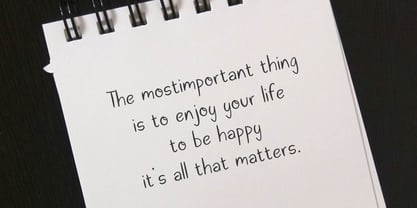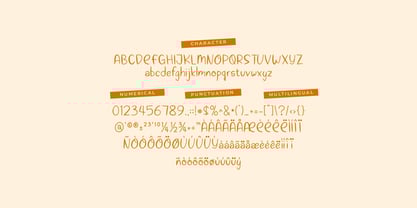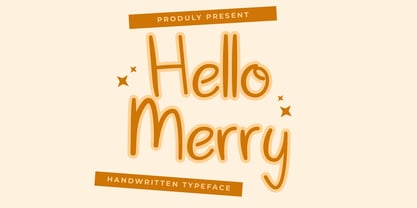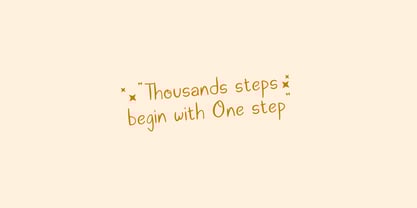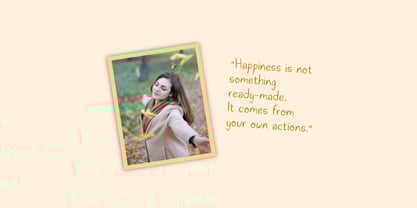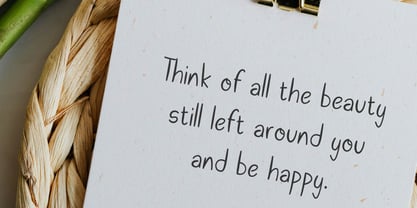
Hello Merry
by Artiveko
The Hello Merry Font Family was designed by Iwan Alwan and published by Artiveko. Hello Merry contains 2 styles.
Hello Merry is a delightful handwritten font that brings joy, warmth, and personality to every design. With bouncy curves, smooth strokes, and an organic flow, this font feels like a handwritten note from a dear friend — playful, friendly, and full of heart. It’s perfect for greeting cards, quotes, invitations, social media content, kids branding, and cheerful packaging.
Crafted to feel casual yet creative, Hello Merry includes uppercase and lowercase characters, multilingual support, and a fun set of ligatures and alternates to add variety and a natural touch. Each letter is drawn with care to give your text an authentic, joyful energy that radiates positivity.
Whether you're celebrating a special moment or adding a smile to your design, Hello Merry makes every word feel light and full of life. Let your creativity sparkle — with Hello Merry, the handwritten font that’s as happy as it sounds.